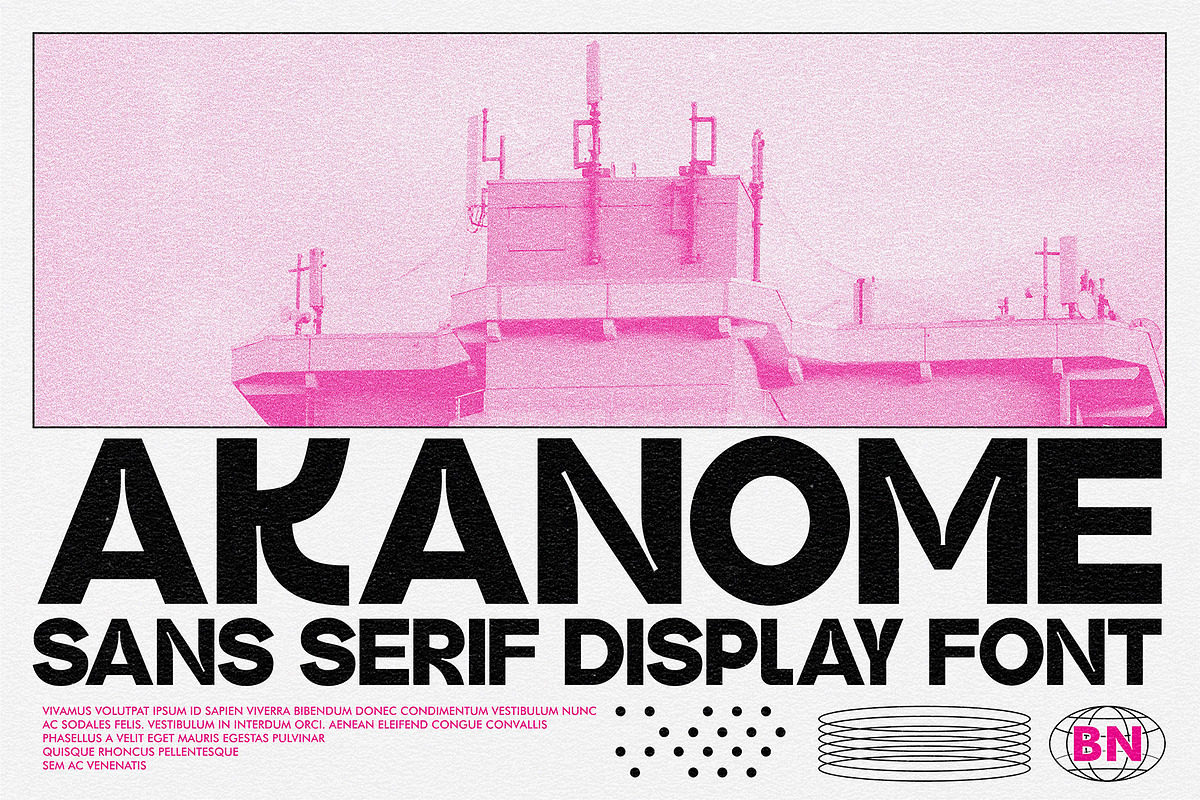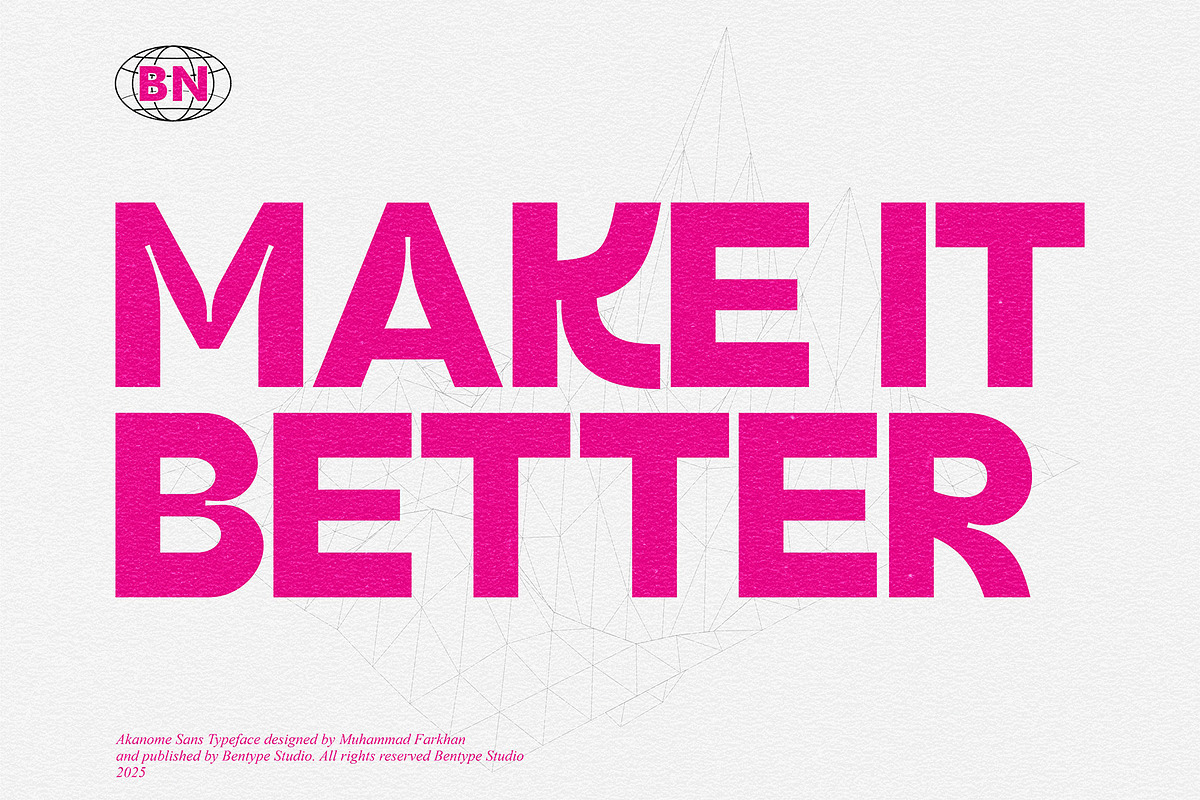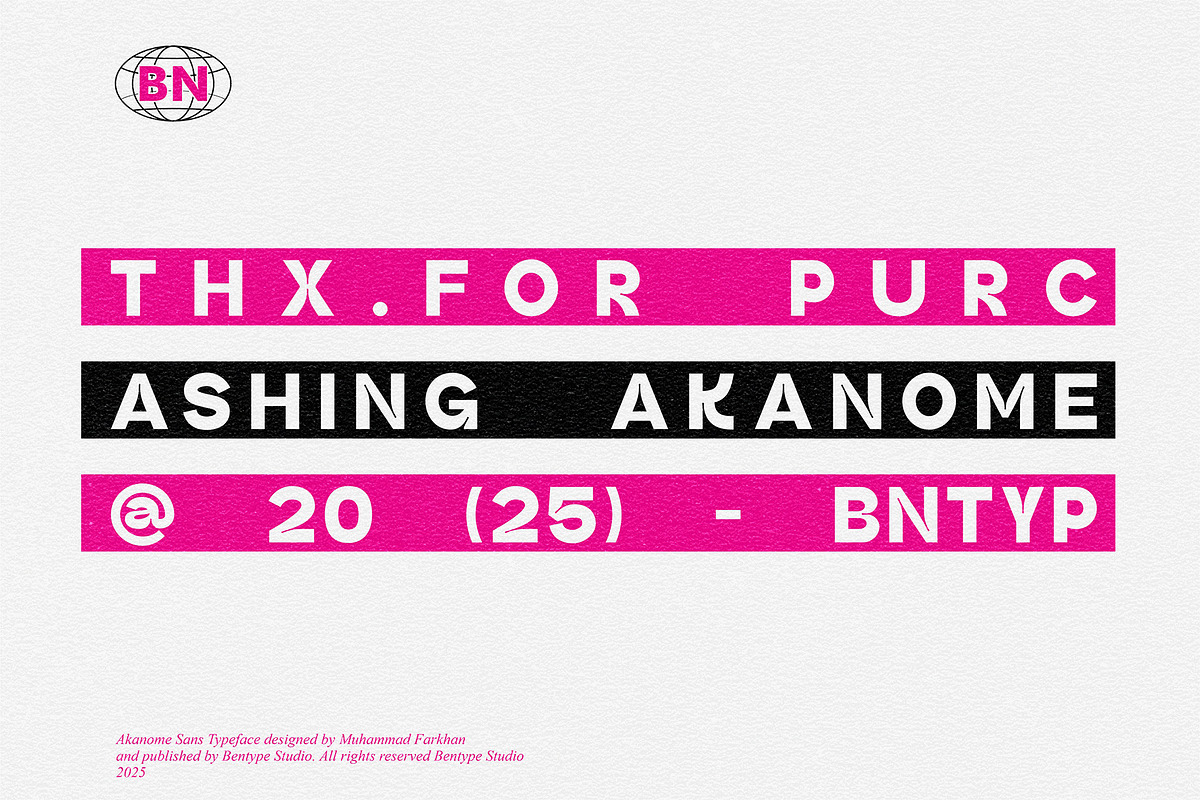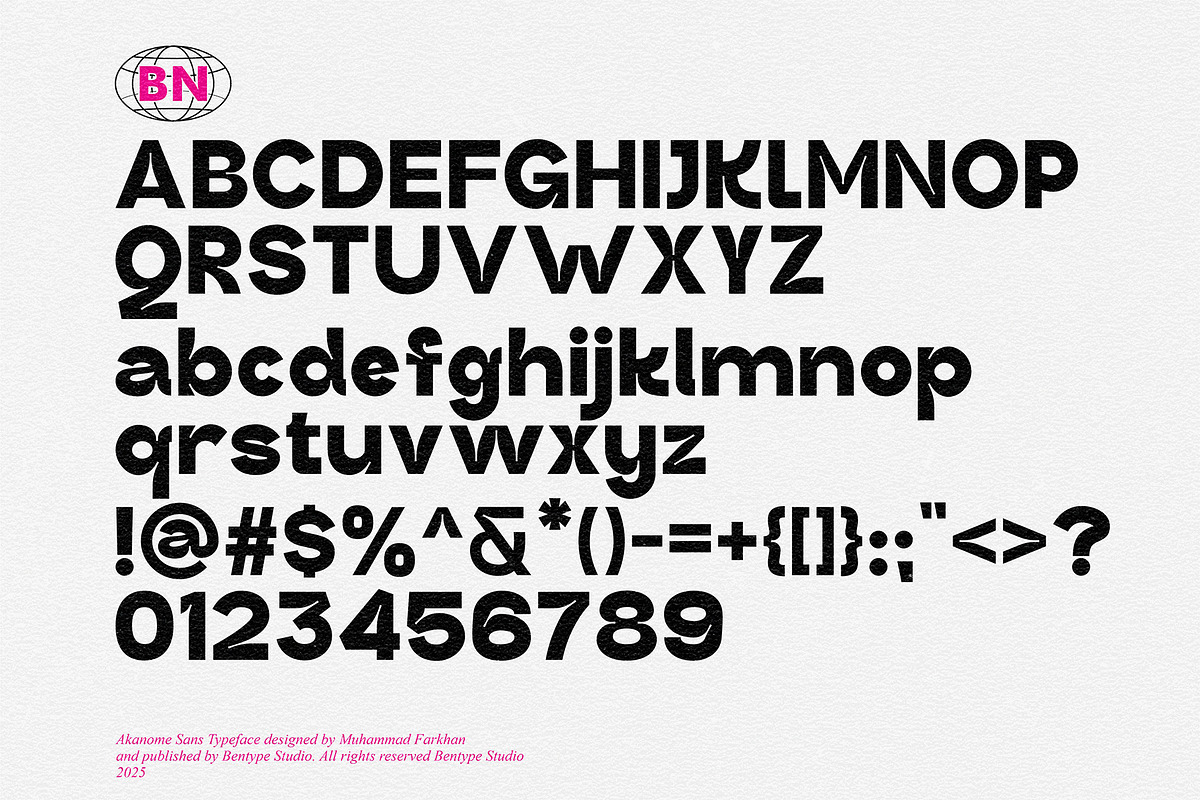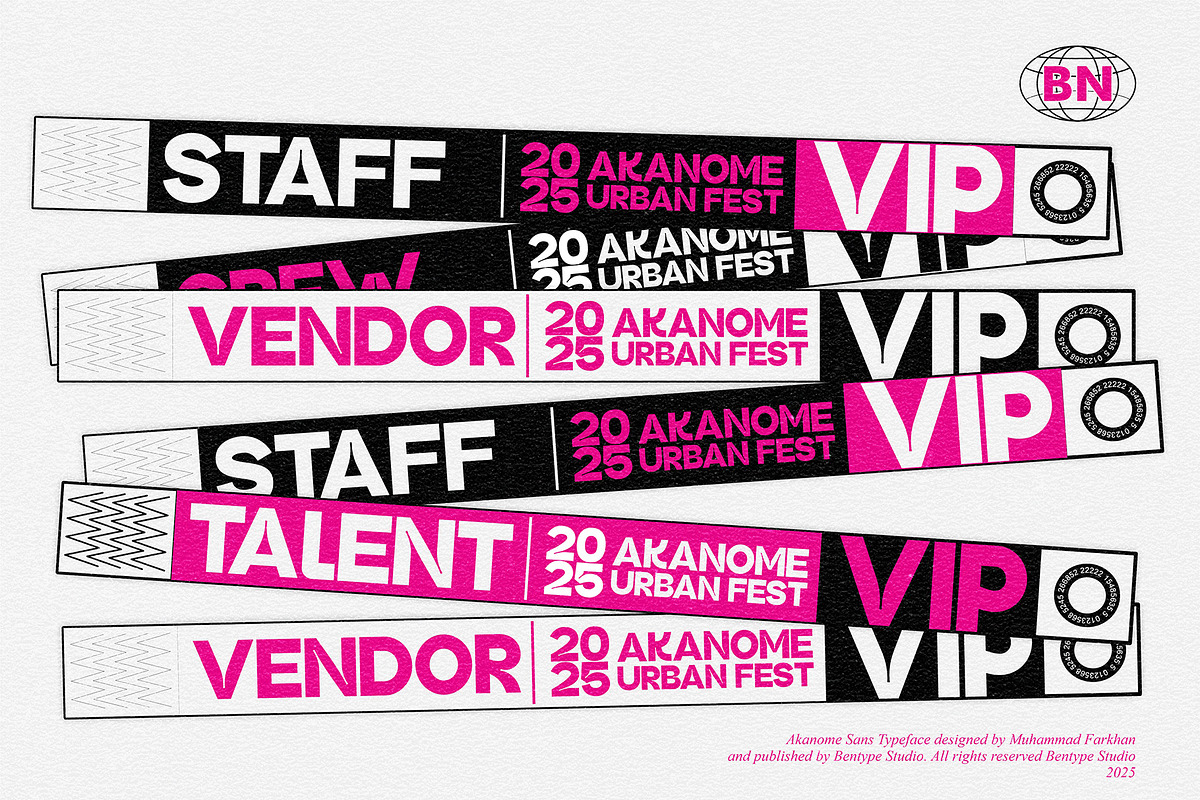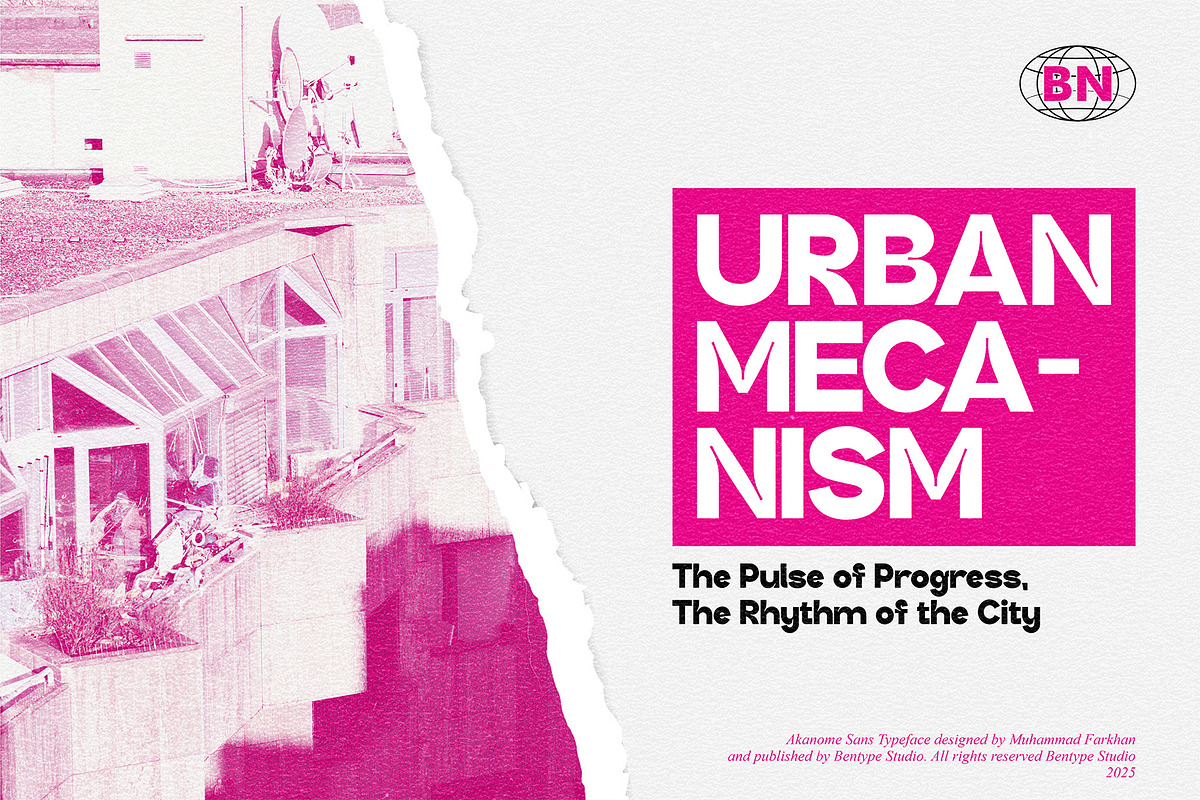
Akanome Sans
Akanome Sans is a modern sans display font with several unique stems and joins. Despite their limitations in character set and resolution, with inktrap style and semi bold mode.